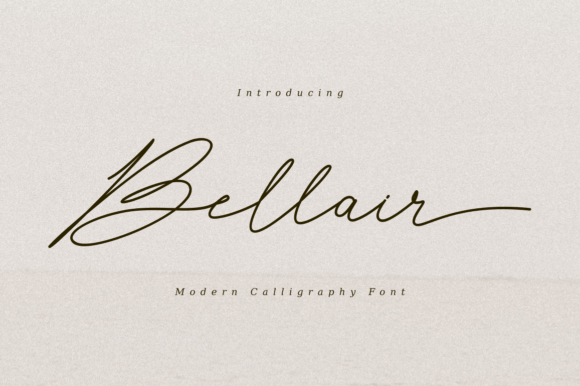
Bellair Font: A Romantic and Delicate Script Font for Your Design Needs
Are you looking for a font that exudes elegance and sophistication? Look no further than the Bellair Font. This beautiful script font is perfect for designers who want to add a touch of romance and delicacy to their designs. In this article, we’ll take a closer look at the Bellair Font, its features, and how you can use it to create stunning designs.
What is Bellair Font?
Bellair Font is a romantic and delicate script font that is perfect for a variety of design projects. It’s a beautifully crafted font that features elegant lines, intricate swashes, and a touch of sophistication. The font is designed to be versatile, making it suitable for use in a range of applications, from wedding invitations and branding materials to social media graphics and more.
Features of Bellair Font
So, what makes Bellair Font so special? Here are just a few of its key features:
- Delicate and Romantic: Bellair Font is a delicate and romantic script font that is perfect for designs that require a touch of elegance and sophistication.
- Classy Style: The font features a classy style that is perfect for a range of design projects, from luxury brands to wedding invitations and more.
- Swashes and Glyphs: The font includes a range of swashes and glyphs that you can use to add a personal touch to your designs.
How to Use Bellair Font
Now that we’ve covered the features of Bellair Font, let’s take a look at how you can use it in your designs. Here are a few ideas to get you started:
- Wedding Invitations: Bellair Font is perfect for wedding invitations, with its elegant lines and romantic feel.
- Branding Materials: The font is also suitable for use in branding materials, such as logos, business cards, and letterheads.
- Social Media Graphics: Use Bellair Font to create stunning social media graphics, such as Facebook posts, Instagram stories, and more.
- Packaging Design: The font is also perfect for use in packaging design, adding a touch of elegance and sophistication to your product packaging.
Tips for Using Bellair Font
Here are a few tips for using Bellair Font in your designs:
- Use it with a Simple Background: Bellair Font looks best on a simple background, so try to avoid using it with busy or patterned backgrounds.
- Experiment with Swashes and Glyphs: Don’t be afraid to experiment with the swashes and glyphs that come with the font. They can add a personal touch to your designs and make them stand out.
- Use it in Combination with Other Fonts: Bellair Font can be used in combination with other fonts to create a unique and interesting design.
In conclusion, Bellair Font is a beautiful and elegant script font that is perfect for designers who want to add a touch of romance and delicacy to their designs. With its PUA encoding, delicate and romantic style, and range of swashes and glyphs, it’s the perfect choice for a range of design projects. Whether you’re creating wedding invitations, branding materials, or social media graphics, Bellair Font is sure to impress.